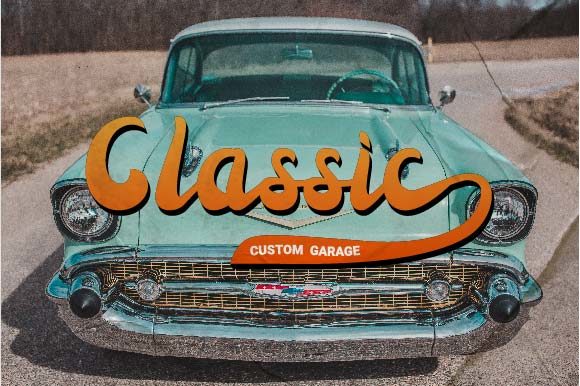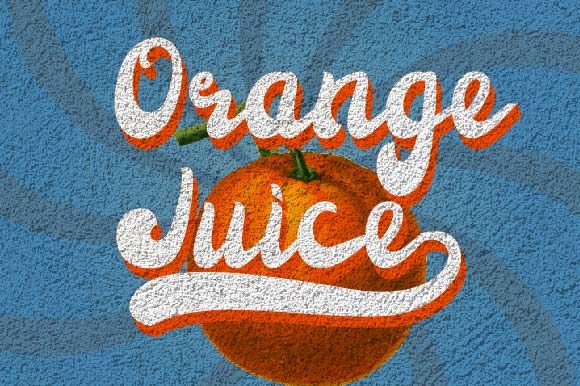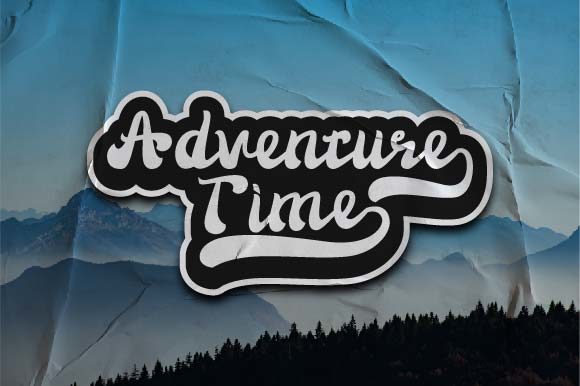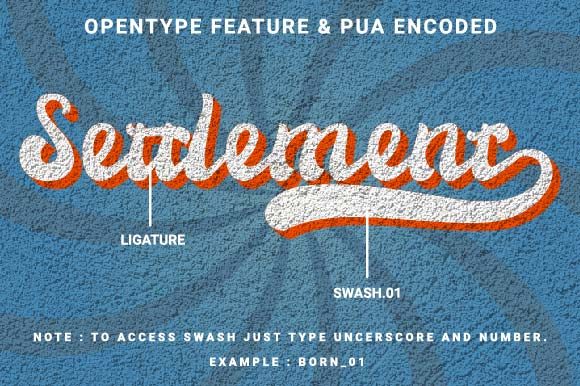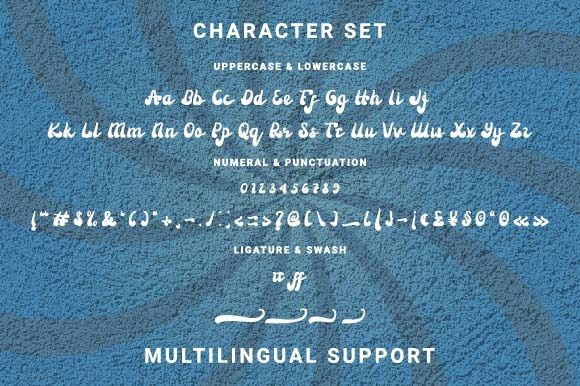
The Designer’s Delight: Fagetone Font
I still remember the design project that led me to discover Fagetone Font. I was working on a vintage-themed branding campaign for a client, and I was struggling to find the perfect font that would capture the essence of the era. The client wanted something bold, confident, and dynamic, but also nostalgic and character-filled. After hours of scouring font libraries and marketplaces, I stumbled upon Fagetone Font, and it was love at first sight! ✨
Fagetone Font has become a staple in my design toolkit, and here’s why:
- ✅ Unique Vintage Style: Fagetone Font boasts a gorgeous, vintage-inspired design that adds a touch of sophistication to any project.
- ✅ Bold and Confident: The font’s bold and dynamic personality makes it perfect for headlines, logotypes, and titles.
- ✅ Nostalgic Character: Fagetone Font has a certain charm that evokes a sense of nostalgia, making it ideal for projects that require a retro or vintage feel.
- ✅ Highly Versatile: This font can be used for a wide range of design projects, from branding and advertising to packaging and editorial design.
However, no font is perfect, and Fagetone Font has a few minor quirks:
- ⚠️ Limited Ligatures: Fagetone Font has a limited set of ligatures, which might be a drawback for some designers.
- 🤔 Not Suitable for Body Text: Due to its bold and decorative nature, Fagetone Font is not ideal for body text or long-form content.
The Story Behind Fagetone Font
Fagetone Font was designed by a talented type designer who drew inspiration from vintage typography and classic scripts. The font’s creator wanted to craft a font that would evoke a sense of nostalgia and sophistication, while also being bold and confident. After months of research and design, Fagetone Font was born – a gorgeous, vintage-inspired font that’s perfect for headlines, logotypes, and titles.
| What is Fagetone Font best used for? | Fagetone Font is ideal for headlines, logotypes, titles, and other design projects that require a bold, confident, and nostalgic feel. |
| Is Fagetone Font suitable for body text? | No, Fagetone Font is not recommended for body text due to its bold and decorative nature. |
| Does Fagetone Font support OpenType features? | Yes, Fagetone Font supports OpenType features, such as Stylistic Alternates and Glyphs. |